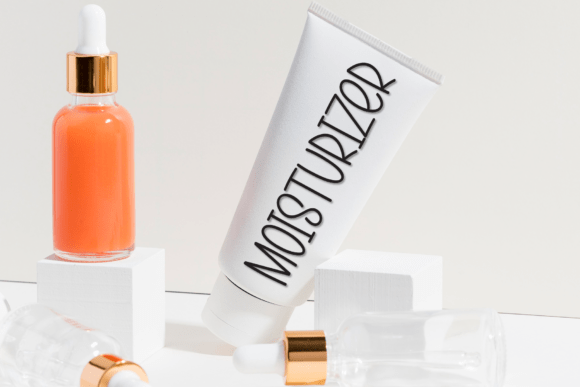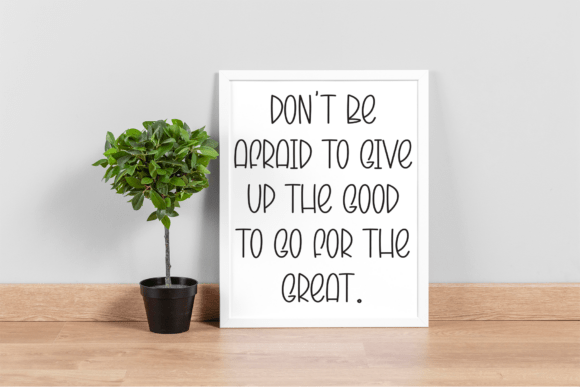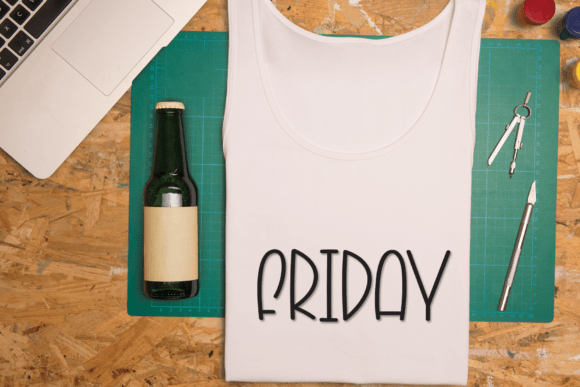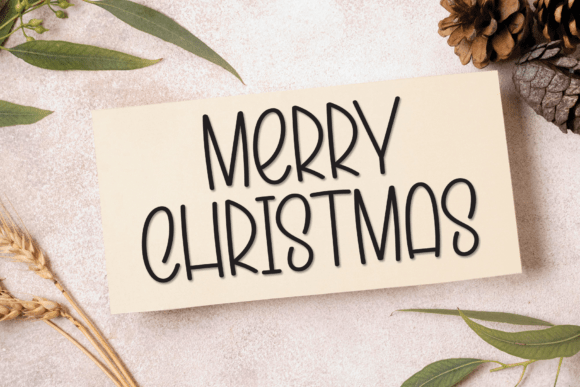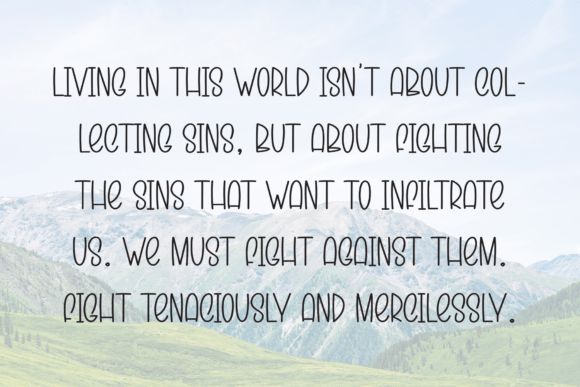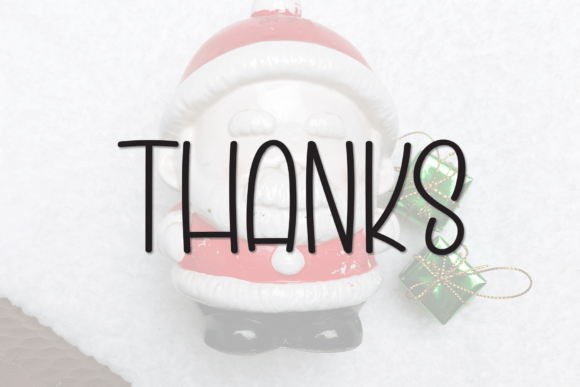
Introduction to Santa Choco Font
Do you remember the magic of writing out your Christmas wish list as a child? The excitement of carefully crafting each letter, the thrill of watching your handwriting come to life on the page? As a designer, you’re likely no stranger to the joy of creating something special for the holiday season. Whether you’re working on a creative project, crafting holiday cards, or designing festive packaging, the right font can make all the difference.
That’s where the Santa Choco Font comes in – a tall and slender handwritten typeface that’s as sweet as holiday cocoa. With its modern yet nostalgic vibe, this versatile font is the perfect addition to any holiday design. And the best part? It’s available for free download, making it a valuable resource for designers looking to elevate their holiday projects.
Key Features of Santa Choco Font
- High-quality design: The Santa Choco Font is a unique and creative project that offers a high-quality design experience for users.
- Unique characteristics: The Santa Choco Font features a distinctive and playful design style, making it an excellent choice for creative projects that require a fun and whimsical touch.
Honest Review: Santa Choco Font
As a designer, I’m always on the lookout for unique and high-quality design resources to enhance my creative projects. Recently, I came across the Santa Choco Font, which has left me impressed with its charming design.
What works well is the font’s playful and whimsical feel, making it perfect for festive-themed projects or designs targeting a younger audience. The font is available for free download, which is a significant advantage, especially for designers on a budget or those who prefer to keep their costs low.
However, I did encounter some limitations with the font. The character set is somewhat limited, which may not be ideal for projects requiring a wide range of characters.
- ⚠️ Limited character set, which may not be suitable for all design needs
Overall, the Santa Choco Font is a great addition to any designer’s toolkit, especially for those working on festive-themed projects or designs targeting a younger audience. While it has some limitations, its unique design and free download make it a worthwhile resource to consider.
The Santa Choco Font is a versatile design resource that can be used in a variety of creative projects, including marketing materials, social media graphics, and presentations. Its high-quality design makes it perfect for business and professional applications, while its transparent background makes it easy to use in complex design projects.